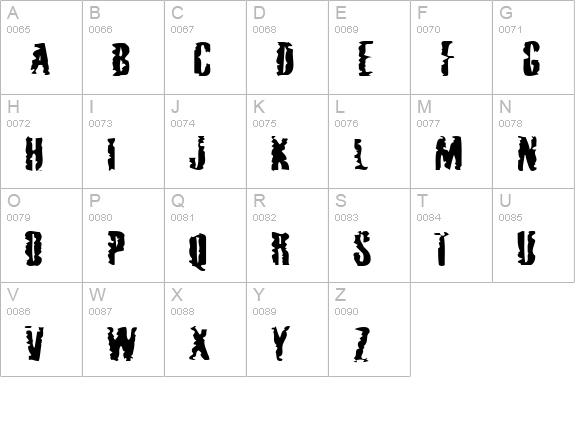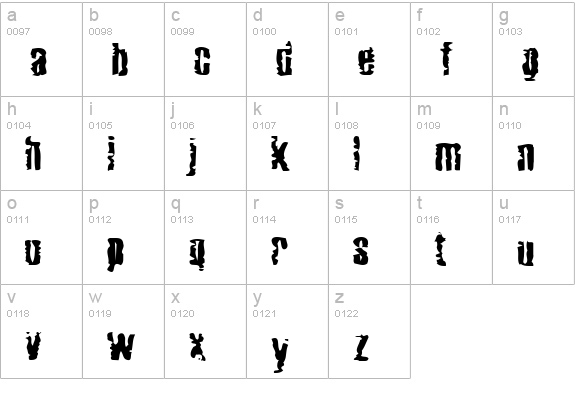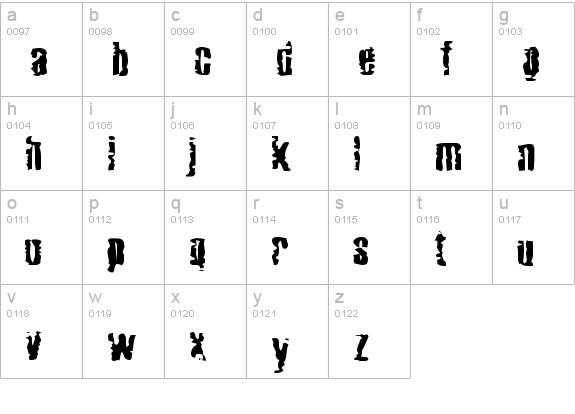
Mardi Gross Drunktype Font Details
Introducing Mardi Gross Drunktype Font, a whimsical and lively typeface that truly captures the spirit of celebration and revelry. This font is perfect for adding a touch of fun and excitement to your designs, with its bold and lively letterforms that dance across the page. With Mardi Gross Drunktype Font, every word becomes a party. The letters are playfully distorted, as if they have imbibed a little too much of the festive spirit. Each character is uniquely designed, with exaggerated curves and bends that add a sense of movement and liveliness to your typography. Whether you are creating invitations for a Mardi Gras celebration, designing posters for a carnival event, or simply adding an element of fun to your personal projects, Mardi Gross Drunktype Font is sure to make a bold statement. Its distinct and vibrant style will instantly grab attention and bring a sense of joy to any design. And the best part? Mardi Gross Drunktype Font is available for free download at FontsMarket.com. That's right, you can add this fantastic font to your collection without spending a dime. Simply visit FontsMarket.com, search for Mardi Gross Drunktype Font, and enjoy the freedom of creativity that comes with freely available resources. So let your imagination run wild and embrace the festive spirit with Mardi Gross Drunktype Font. With its playful and energetic design, it will bring your designs to life and infuse them with the joy and excitement of Mardi Gras. Download it today and let the party begin!